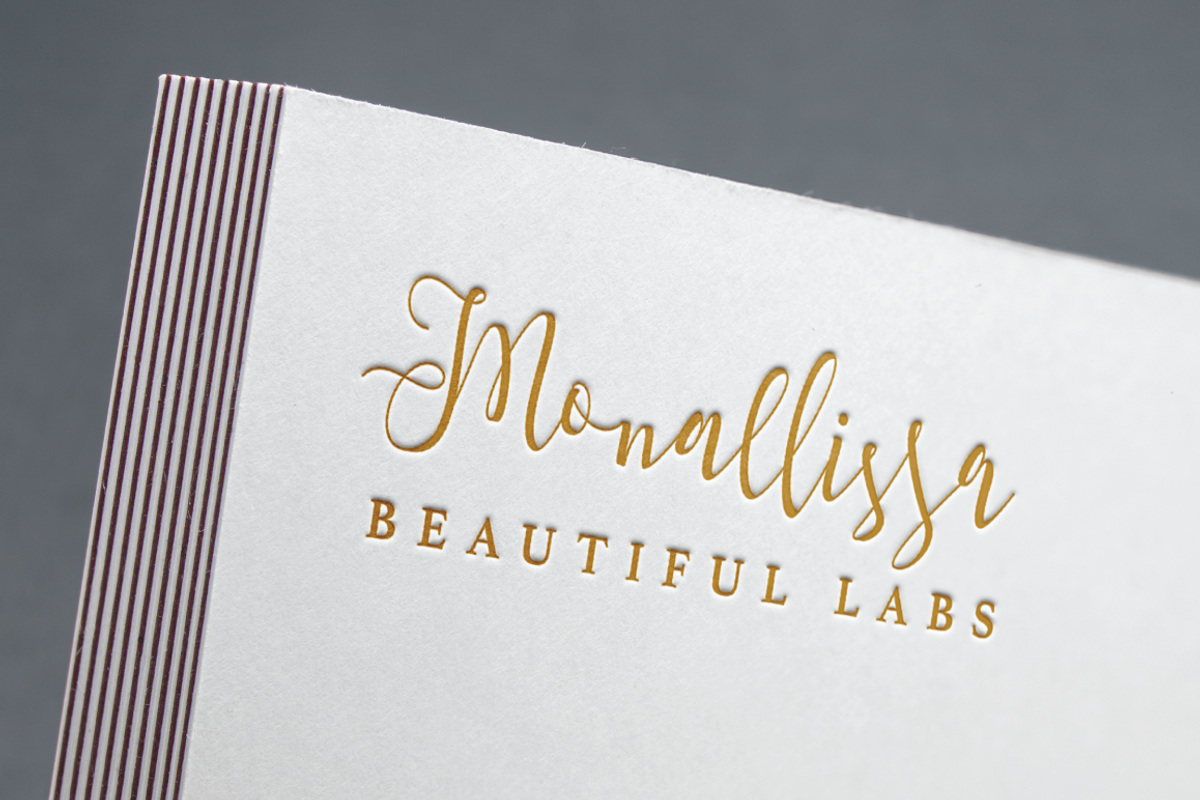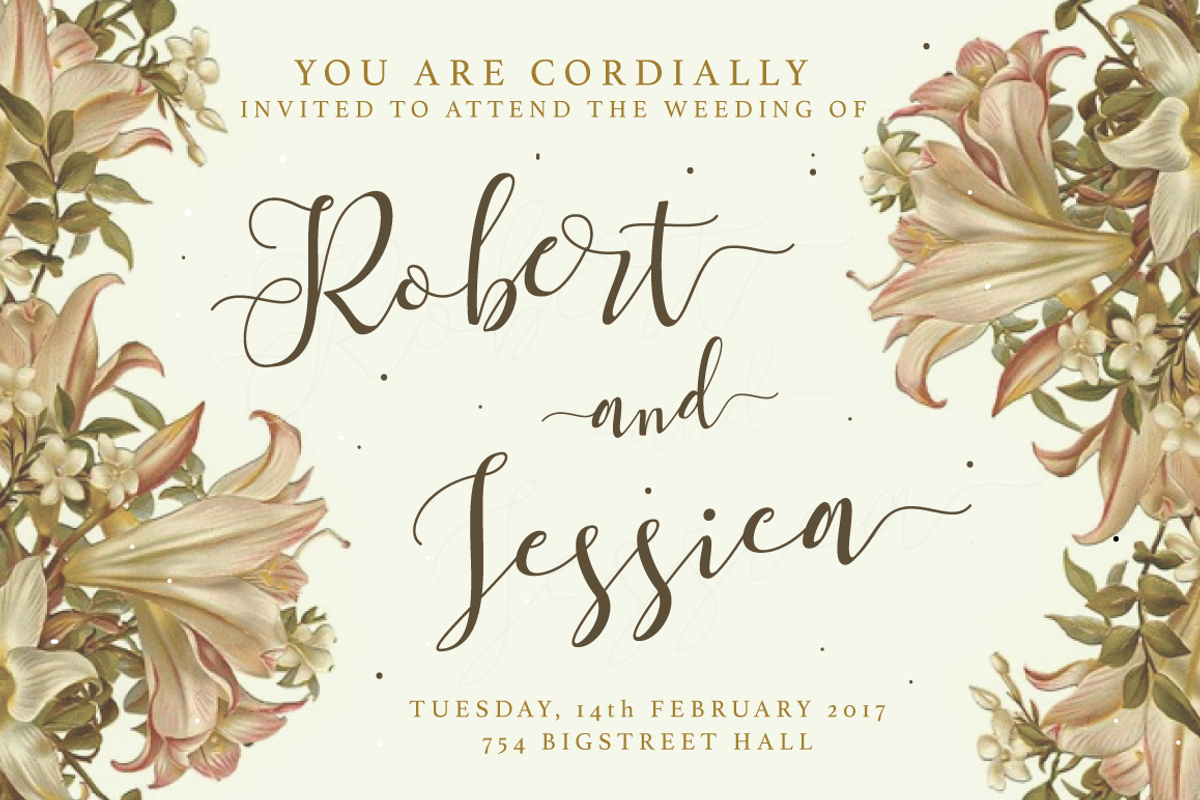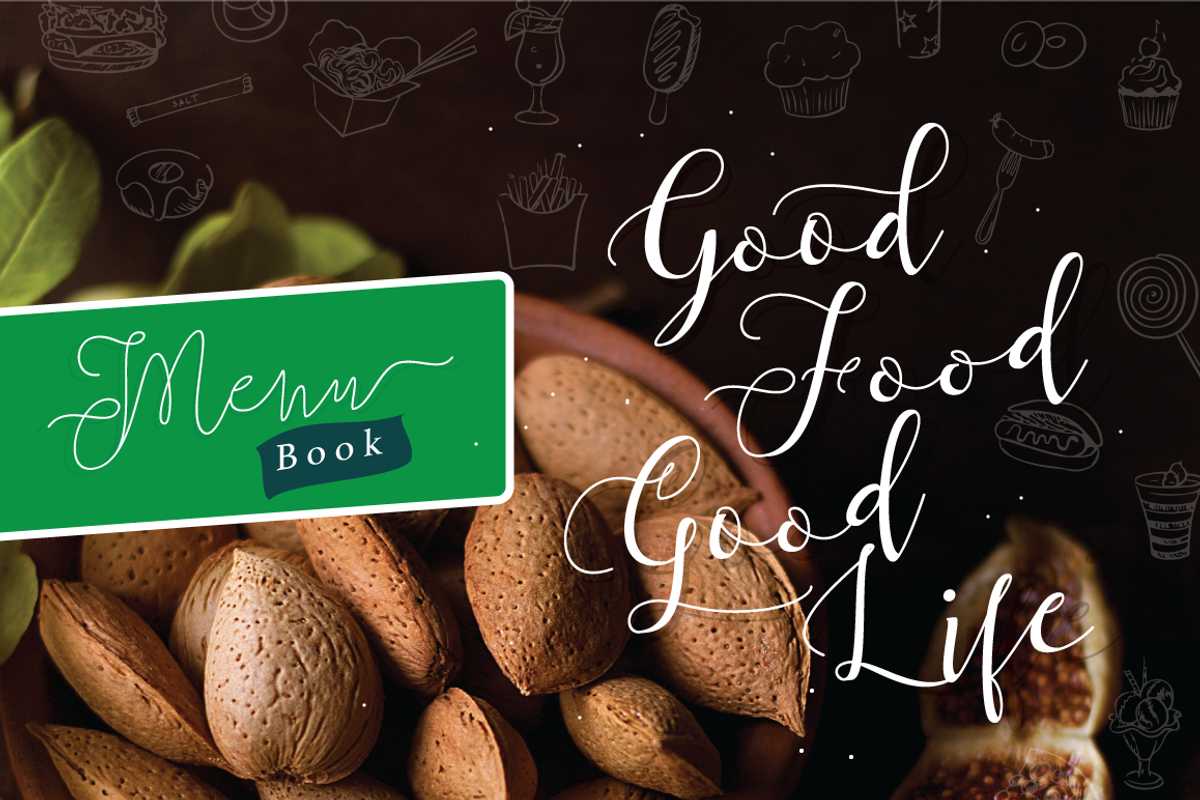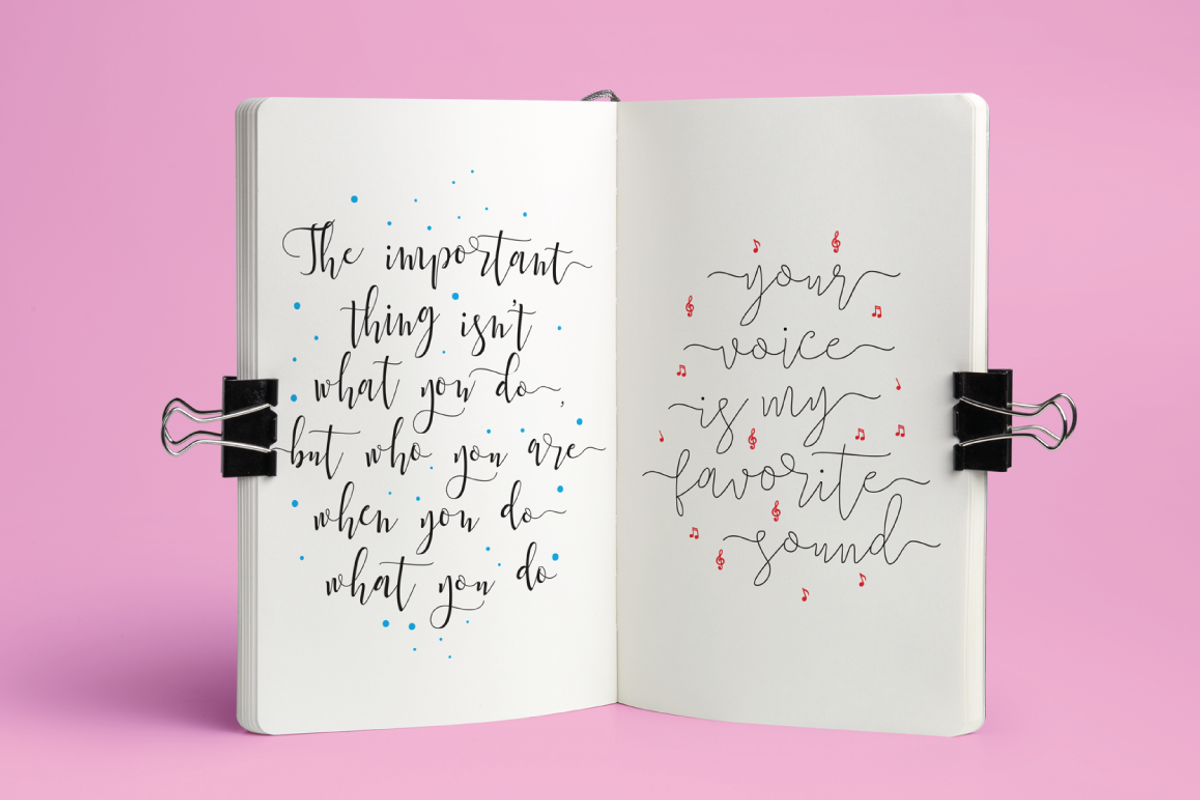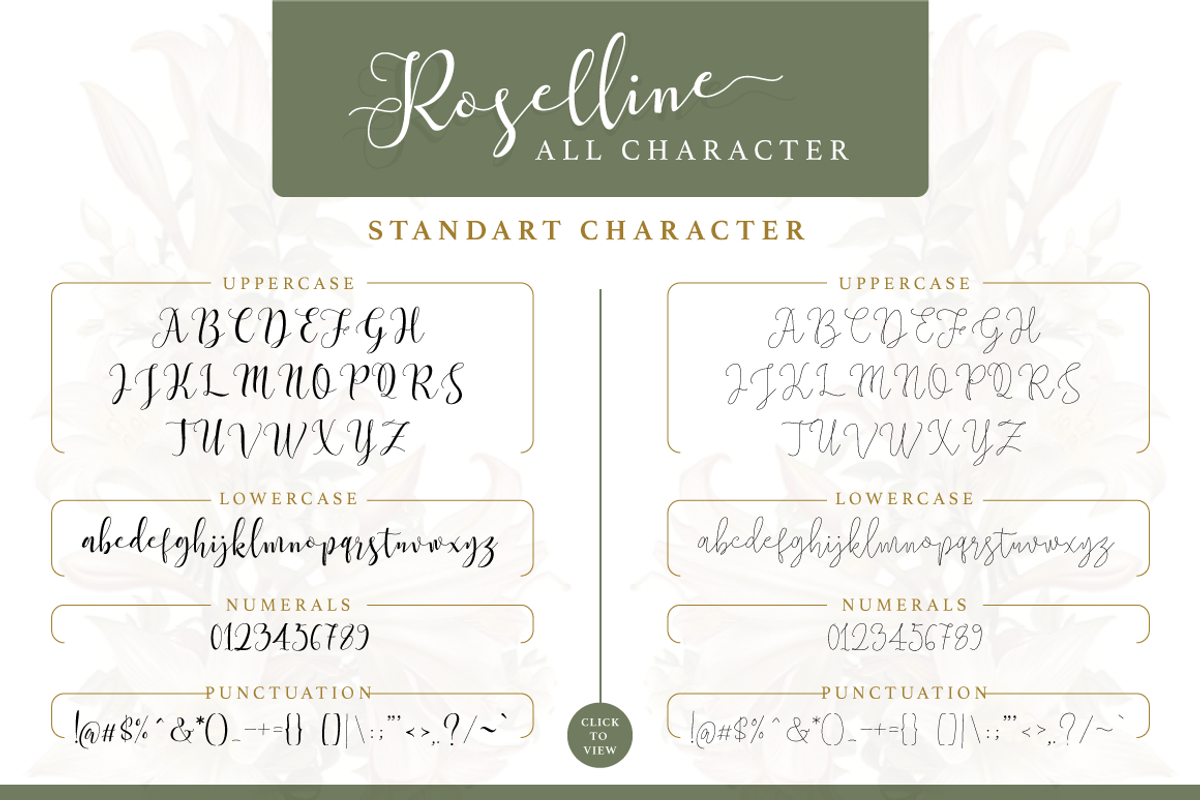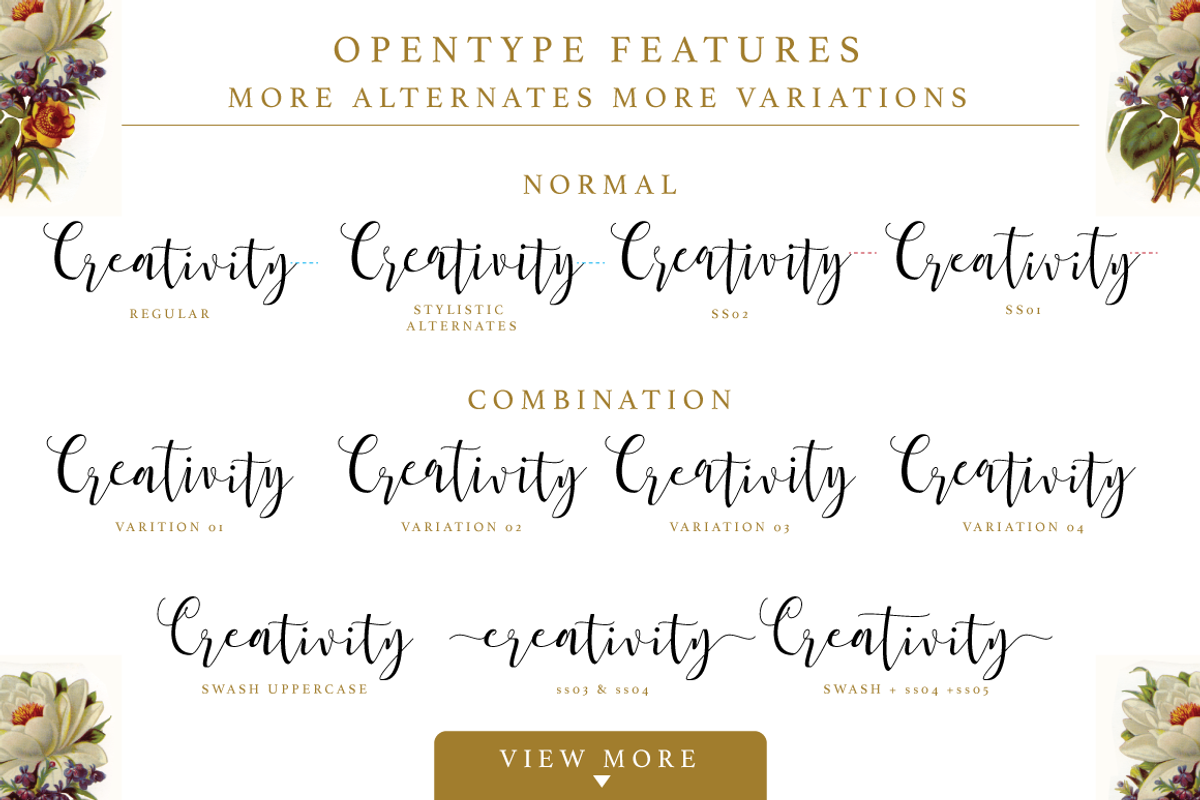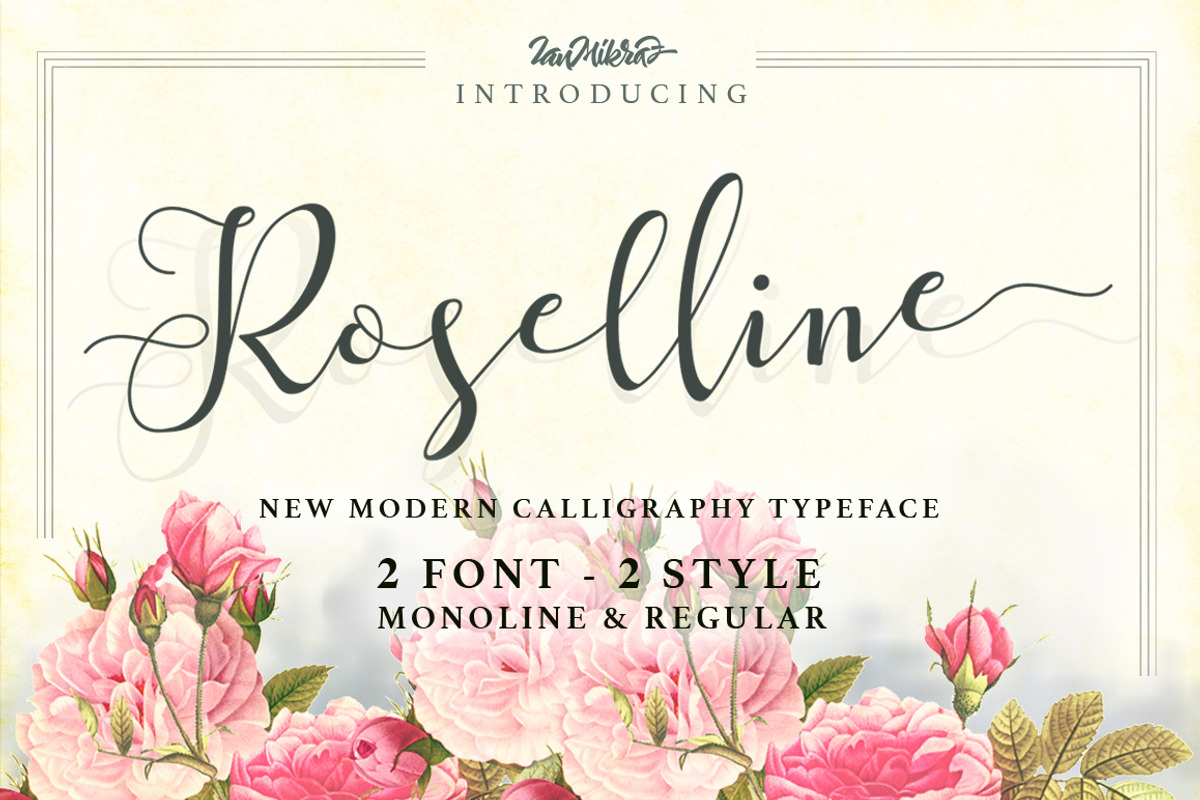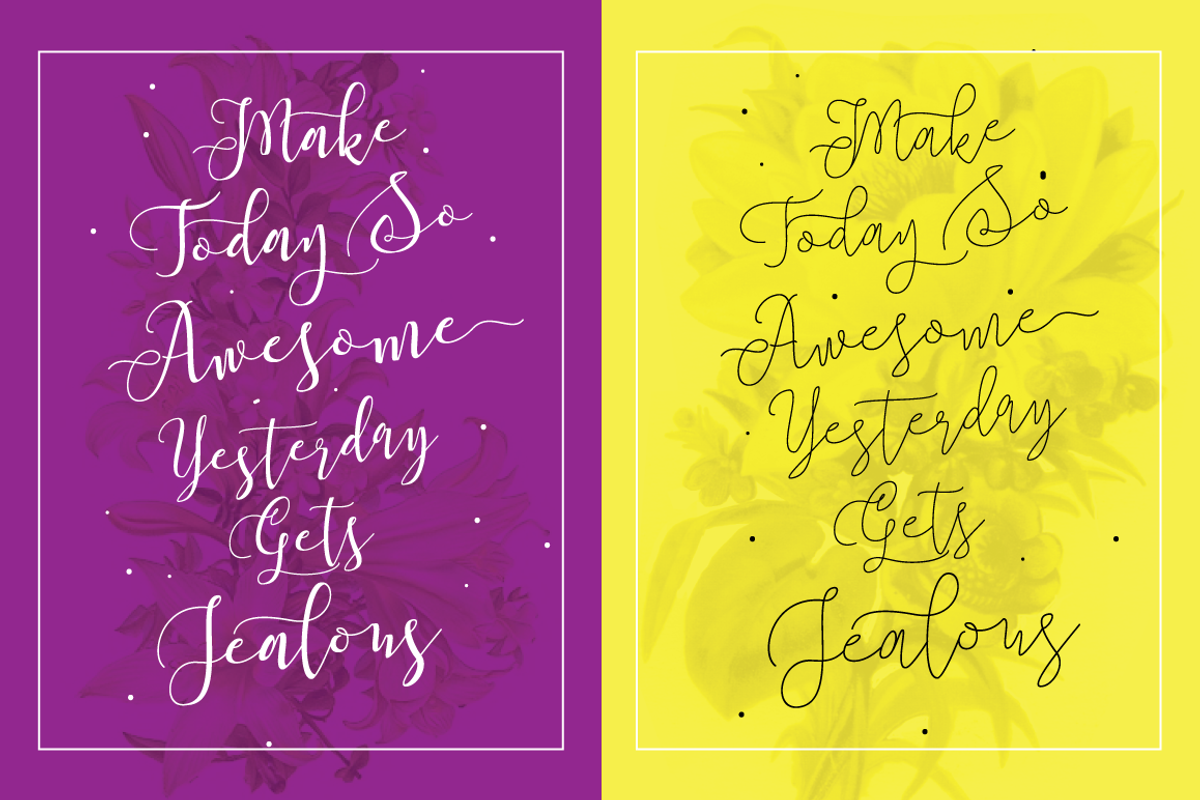
Roselline Typeface
Roselline Typeface by ianmikraz is a font selected for branding, posters, packaging, typography.
- Roselline Script features 370 glyphs and 177 alternate character contain with opentype features and has given PUA unicode (specially coded f
- Stylistic Alternates, Standart Ligature and more.You can access all those alternate characters by using OpenType savvy programs such as Adob
- Mix and match the alternate characters to add an attractive message to your design.
- Roselline Regular
- Roselline Monoline Regular
Roselline Typeface by ianmikraz fits naturally into Branding, posters, packaging, typography.